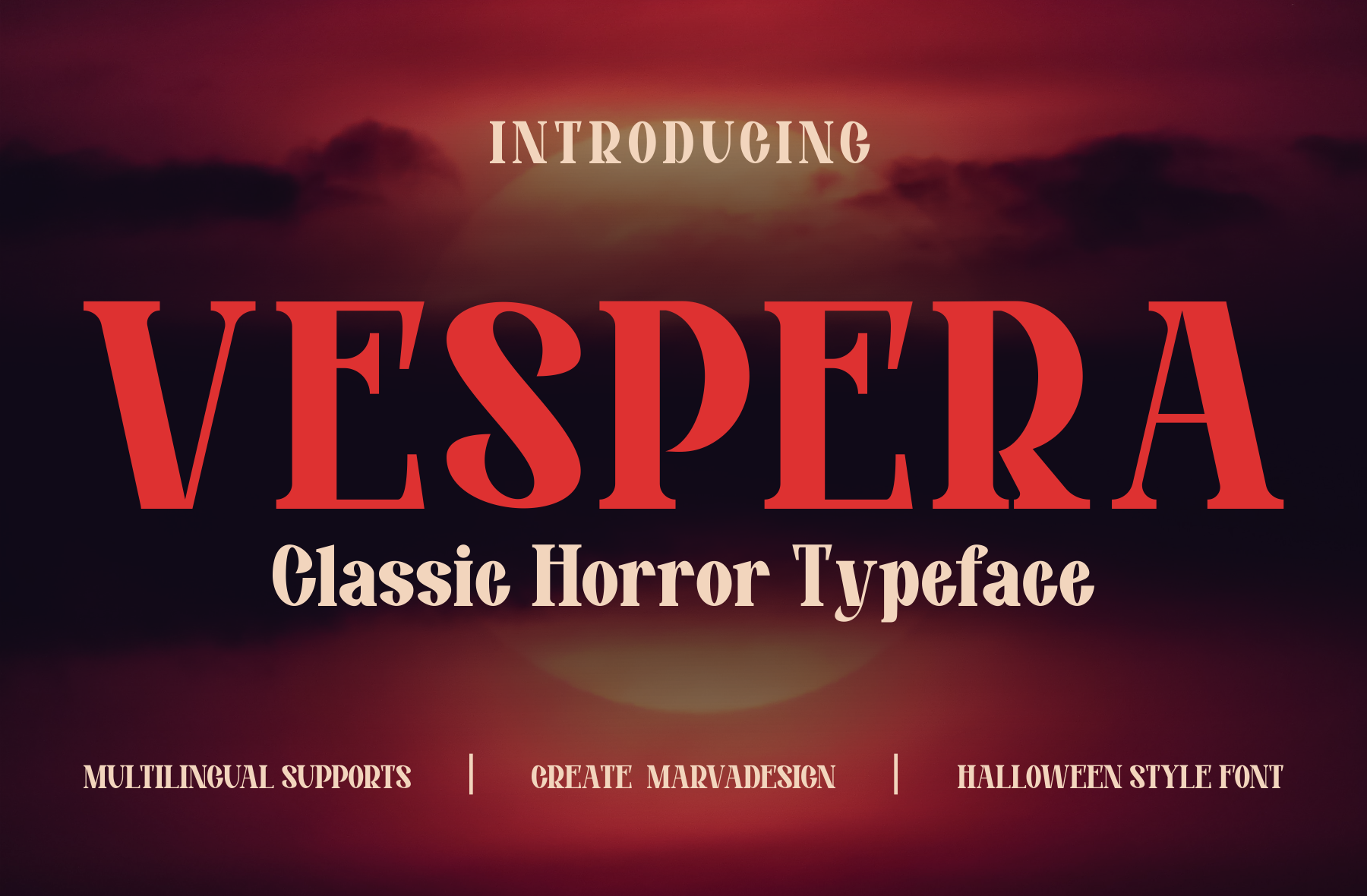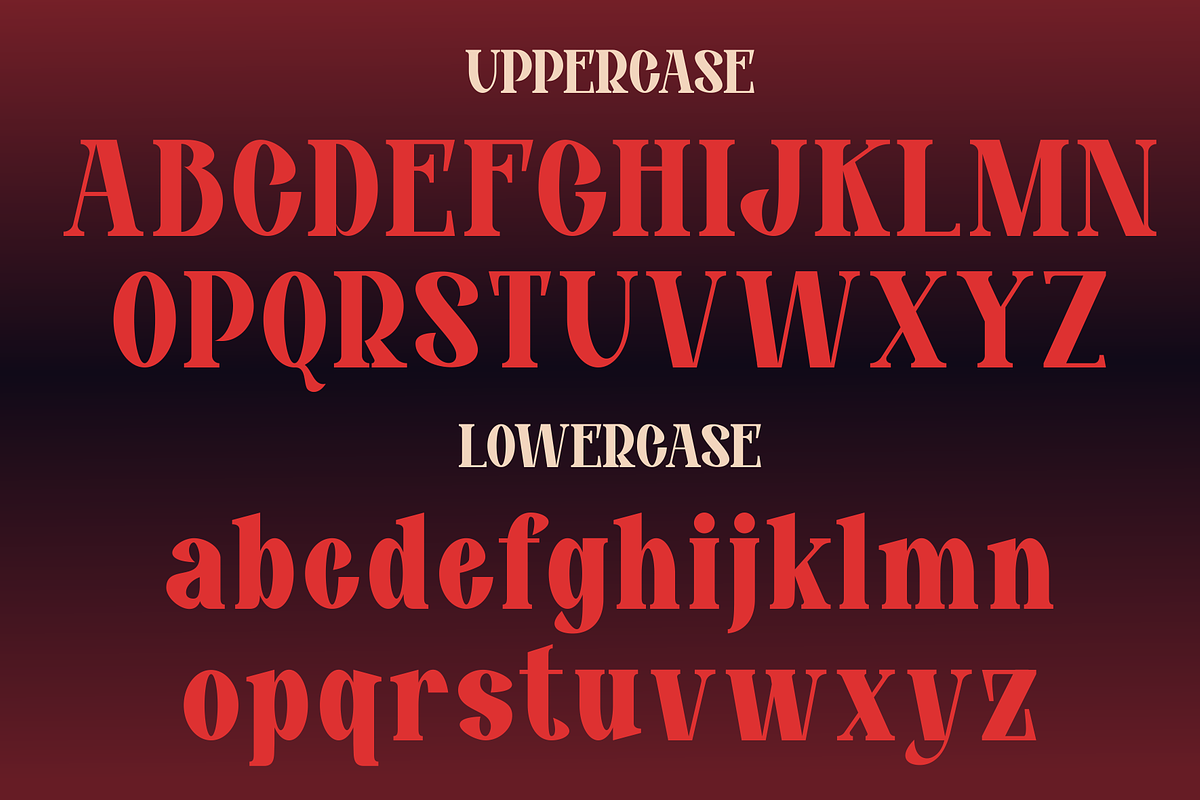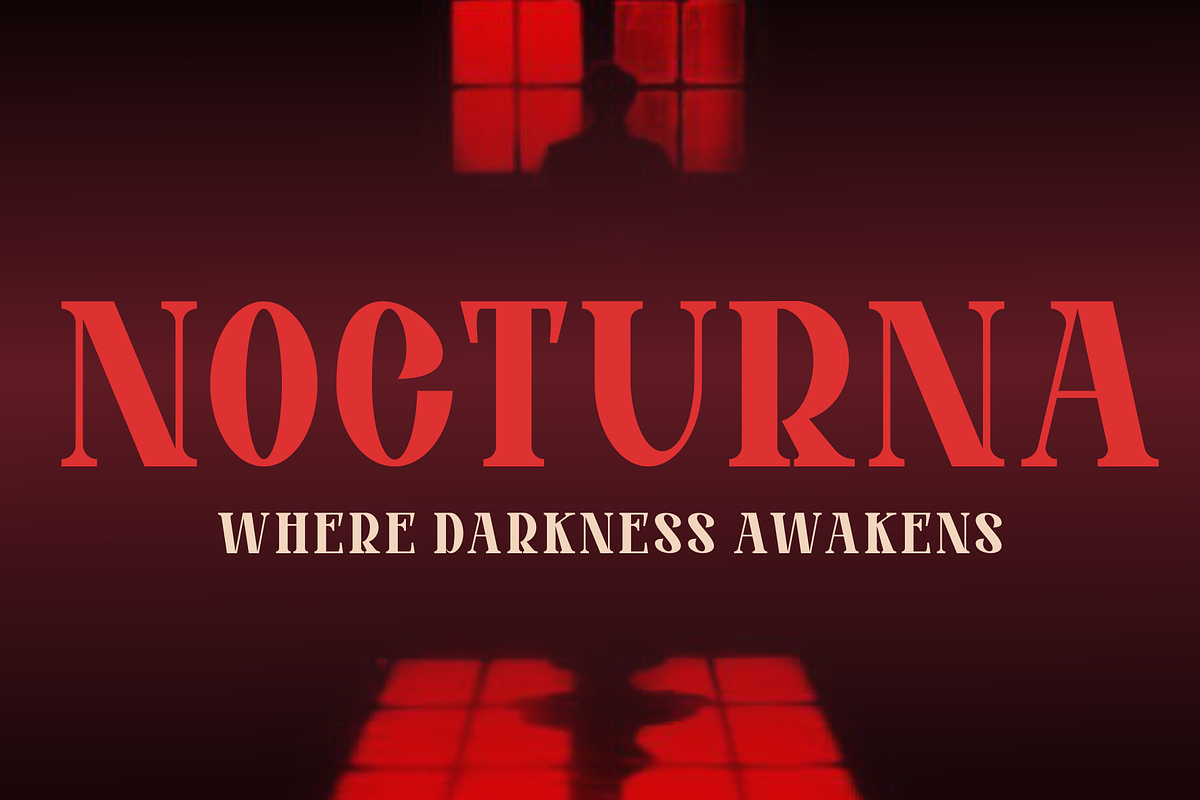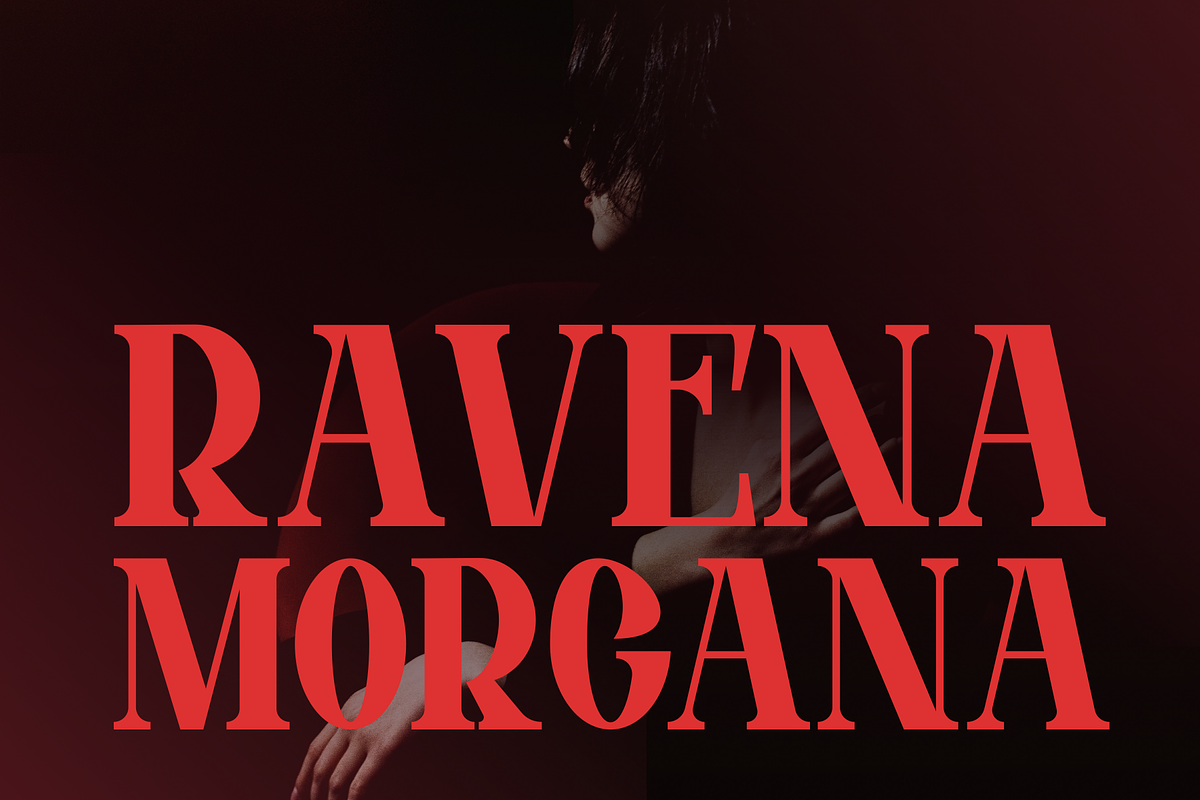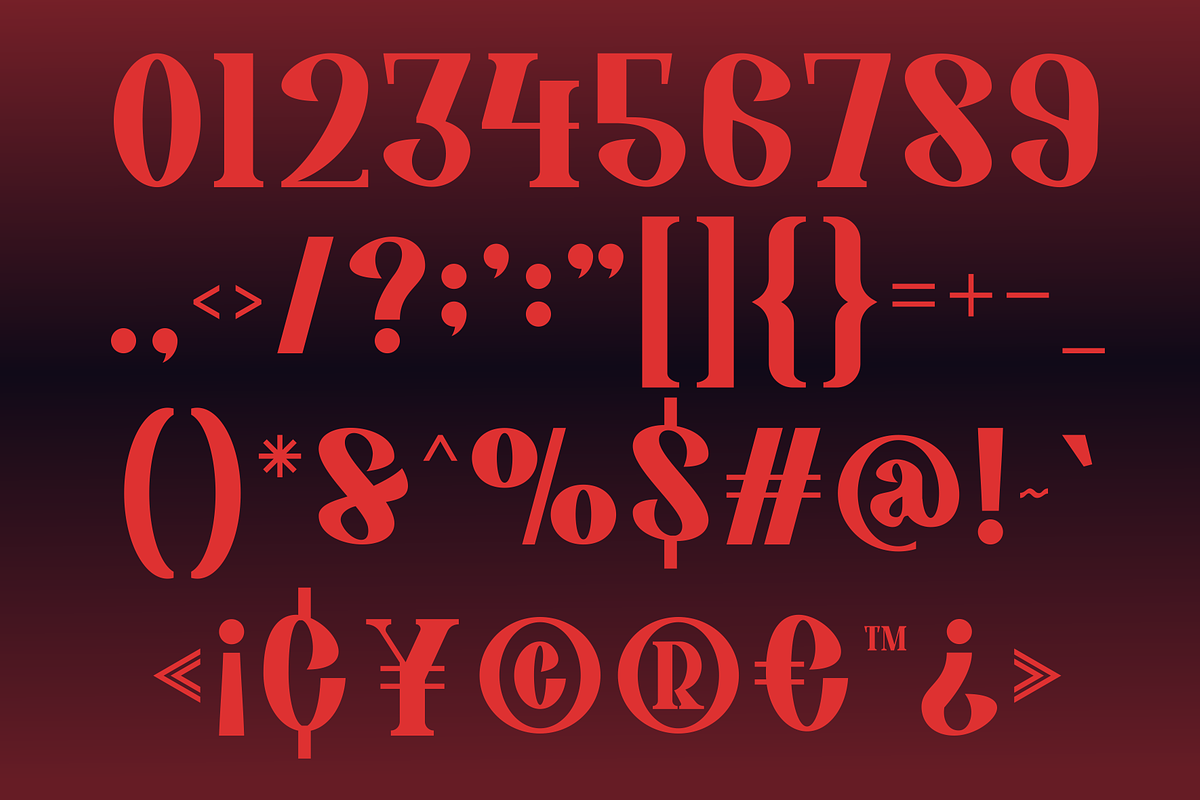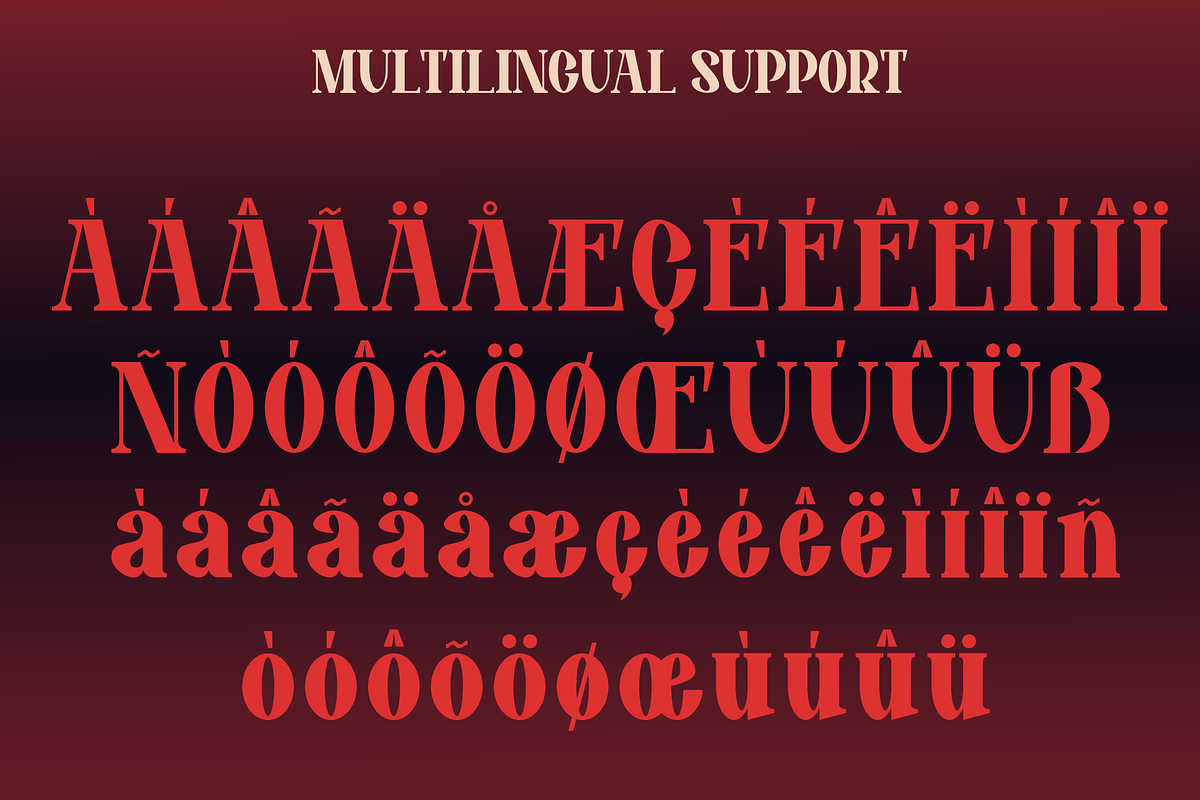
Vespera - A Modern Serif Font
Introducing our new product VESPERA Font - Modern Font is a bold and authentic display font. The font is suitable for any branding project like logo, Template Design, Product and many more. outstanding in a wide range of contexts.